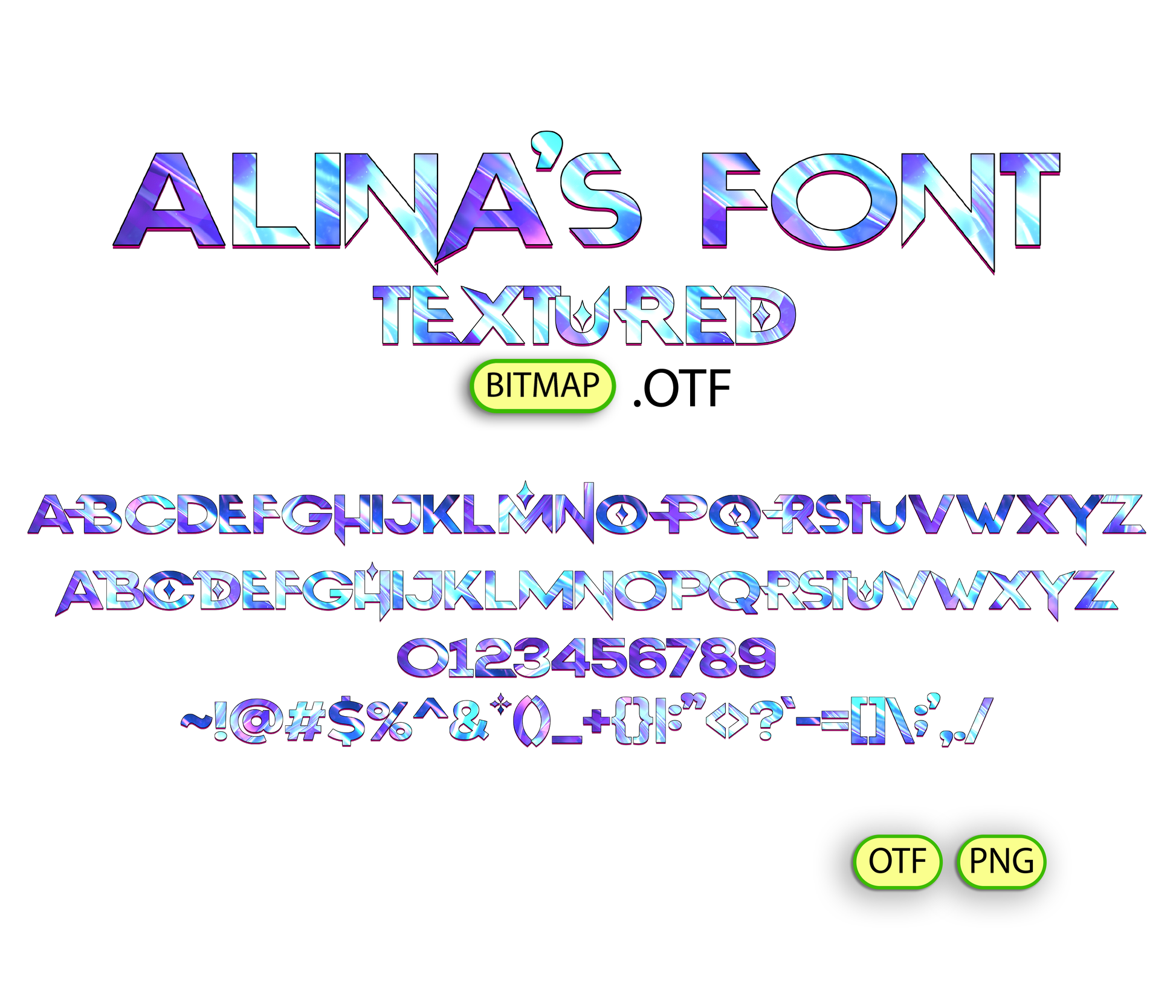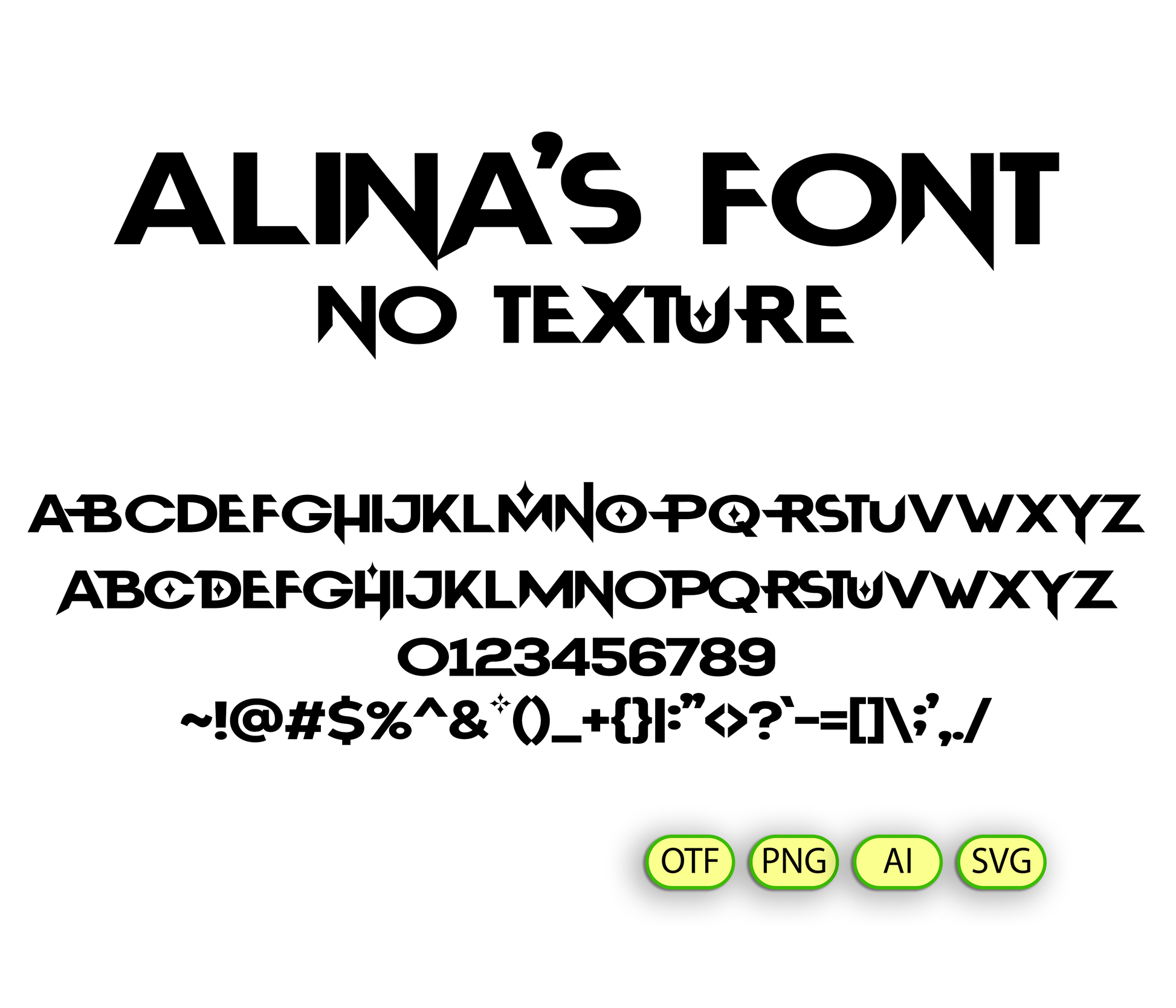
Pop Star Slayers Font Textured
Step into the electrifying world of musical demon hunters with our Pop Star Slayers font, capturing the essence of K-pop warriors and supernatural defenders. Perfect for K-pop fans, fantasy creators, event organizers, and designers, this font brings the dynamic, fierce spirit of idol fighters to your projects. Create vibrant materials, merchandise, or digital content with the energetic power of musical champions.
Our Pop Star Slayers font features bold, edgy lines and dynamic characters reflecting the world of idol warriors. Ideal for:
- Event Promotions: Create electrifying invites, posters, and banners for K-pop screenings, fan conventions, and themed parties that capture the spirit of musical demon hunters
- Merchandise Design: Perfect for t-shirts, posters, and accessories that showcase the fierce aesthetic of pop star warriors and supernatural defenders
- Digital Media: Enhance websites, blogs, and social media with dynamic headers and graphics that express the power of idol fighters
- Fan Content: Add authentic flair to fan art, K-pop projects, and creative designs inspired by musical warrior tales
- Personal Projects: Bring energetic excitement to scrapbooking, DIY crafts, and home decor inspired by the world of pop star champions
Our font pays tribute to the iconic world of K-pop demon hunters, empowering your designs with its fierce and vibrant spirit. Whether crafting promotional materials, designing merchandise, or adding a dynamic touch to personal projects, this font communicates the bold essence of musical warriors. Ready to inject pop star power into your creations? This font is your key to exciting, impactful design.